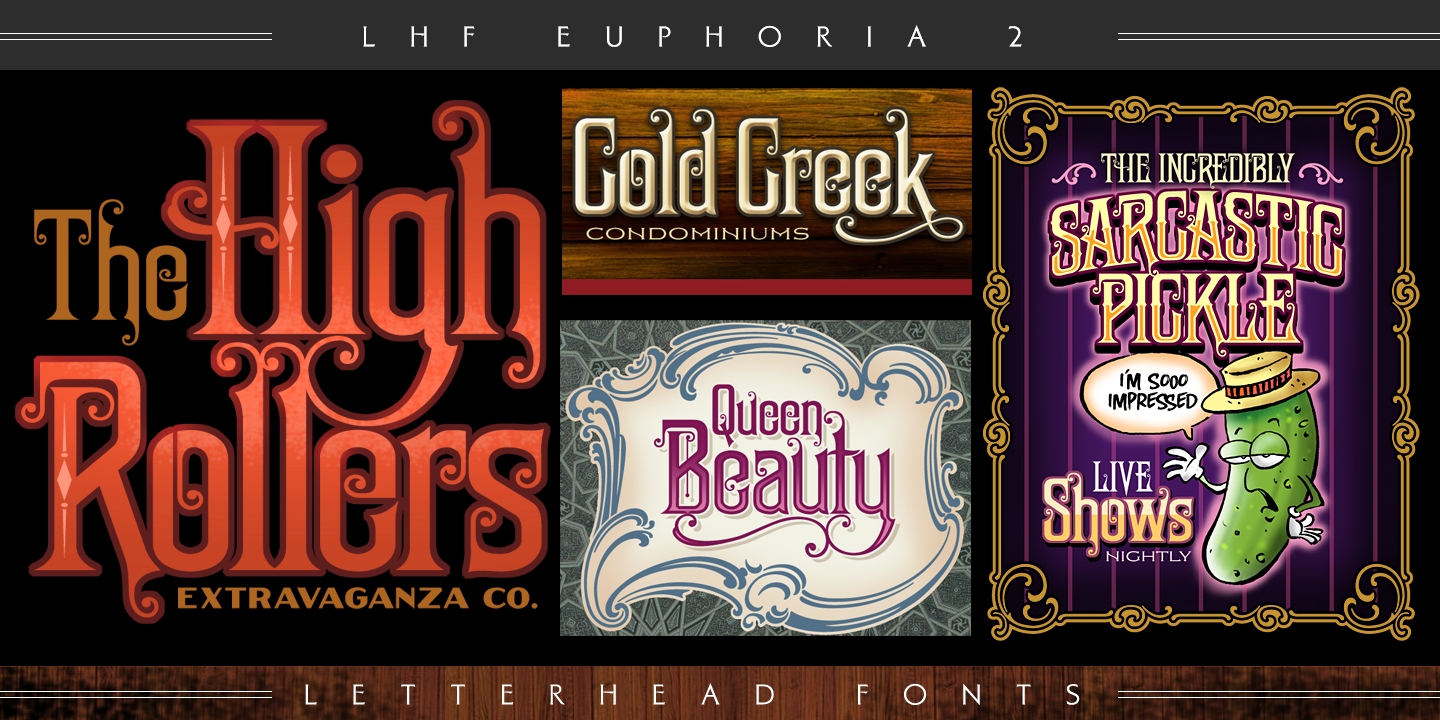
LHF Euphoria 2 Font is perfect for ecstatic celebration designs, joyful event invitations, euphoric music festival promotions, blissful wedding stationery, triumphant victory announcements, exhilarating party graphics, delightful brand identities, uplifting motivational materials, rapturous concert posters, and elated social media campaigns. Its euphoric character makes it ideal for projects requiring pure joy and exhilarating visual appeal that celebrates life's most blissful moments.
What makes LHF Euphoria 2 Font exciting is its extraordinary ability to visually capture the intoxicating feeling of pure euphoria through dynamic letterforms that seem to dance with uncontainable joy and celebration. The font features flowing, exuberant curves with uplifting proportions that convey absolute bliss and ecstatic energy while maintaining excellent readability for celebratory communications. Its euphoric character transforms ordinary text into expressions of pure happiness that make viewers feel instantly uplifted and ready to celebrate life's beautiful moments.
The LHF Euphoria 2 Font family includes Regular, Bold, Light, Ecstatic, Blissful, Joyful, and Rapturous variations. Each style preserves the font's euphoric essence while offering different levels of celebratory intensity and joyful weight for creating authentic happiness graphics. The comprehensive character set includes celebration symbols, euphoric ornaments, joyful decorations, and blissful glyphs essential for genuine celebration and happiness typography projects.
Event planners and celebration brands consistently choose LHF Euphoria 2 Font Free Download for projects demanding authentic euphoric typography solutions. The font's joyful character instantly establishes celebration credibility while ensuring clear communication across happiness marketing channels. Its versatility spans from subtle euphoric touches to bold statements that celebrate the transformative power of pure joy and the essential importance of celebrating life's most precious and exhilarating moments.
Whether you're developing celebration brand identities, creating joyful marketing materials, or designing euphoric communications, LHF Euphoria 2 Font provides the perfect combination of blissful authenticity and contemporary functionality. The font's euphorically crafted letterforms ensure genuine celebration character while maintaining excellent performance across various happiness applications and joyful business communications.
The celebratory heritage of LHF Euphoria 2 Font makes it exceptional for creating uplifting connections with audiences who cherish life's joyful moments and euphoric experiences. Its euphoric precision and blissful appeal work seamlessly across traditional celebration materials and modern digital happiness platforms. The font performs ecstatically in both large-scale celebration displays and intimate joyful communications.
Celebrate pure bliss with LHF Euphoria 2 Font and discover how authentic euphoric typography can enhance your celebration projects with genuine joyful appeal and exhilarating sophistication. This remarkable typeface combines celebration tradition with contemporary functionality, making it indispensable for brands celebrating the power of pure happiness and the transformative beauty of life's most euphoric and unforgettable moments.